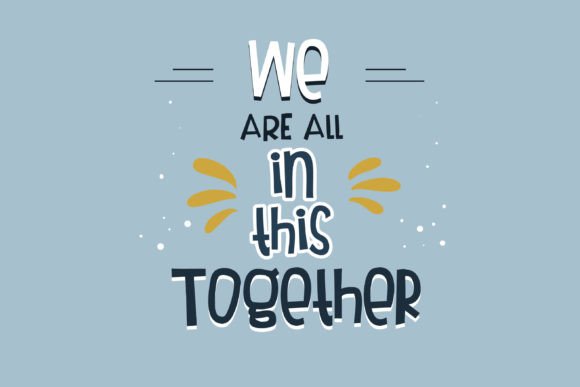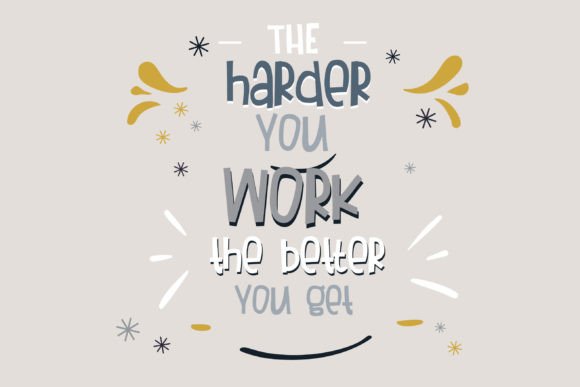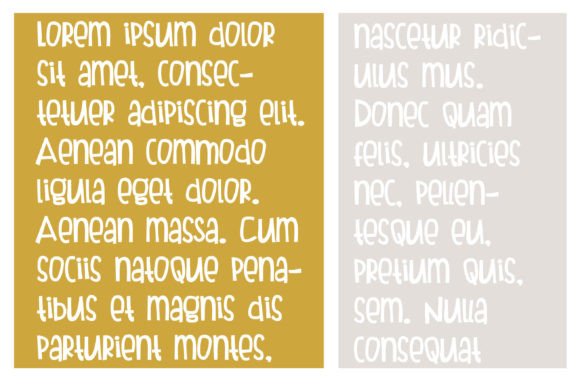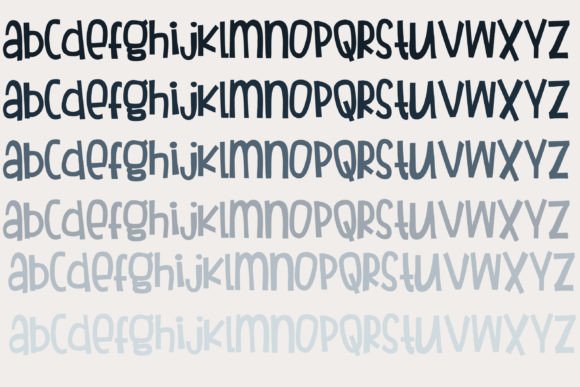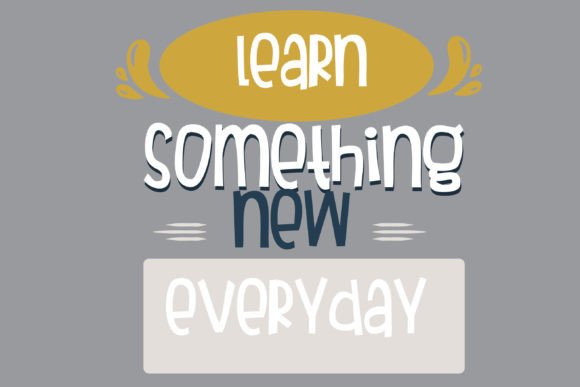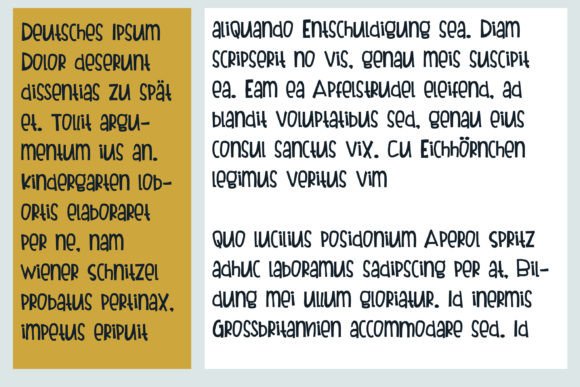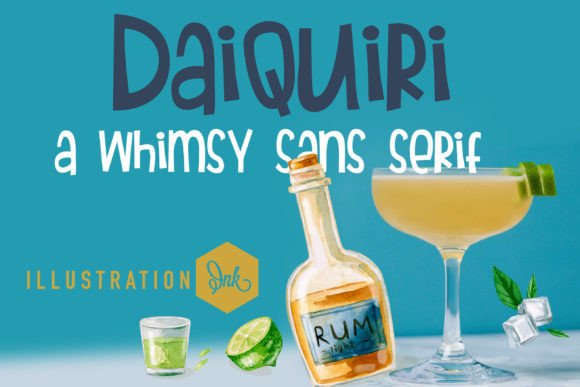
Daiquiri Font: The Ultimate Guide to a Youthful and Whimsical Typeface
Are you tired of using the same old fonts in your design projects? Look no further than the Daiquiri Font, a hand-written sans serif typeface that’s perfect for adding a touch of youthfulness and whimsy to your work. In this comprehensive guide, we’ll dive into the world of Daiquiri Font and explore its features, applications, and benefits for designers and crafters.
What is Daiquiri Font?
Daiquiri Font is a unique and charming hand-written sans serif font that’s designed to bring a smile to your face. Its youthful and whimsical vibe makes it perfect for a wide range of applications, from greeting cards and headlines to posters, flyers, and more. With its clean and simple lines, Daiquiri Font is easy to read and understand, making it an excellent choice for both digital and print projects.
Key Features of Daiquiri Font
- Hand-written sans serif: Daiquiri Font boasts a distinctive hand-written look that’s both playful and elegant.
- Youthful and whimsical: This font is designed to evoke a sense of fun and playfulness, making it perfect for projects that require a lighthearted touch.
- Clean and simple lines: Daiquiri Font features clean and simple lines that make it easy to read and understand.
- Versatile: This font is suitable for a wide range of applications, from greeting cards and headlines to posters, flyers, and more.
Applications of Daiquiri Font
Daiquiri Font is perfect for a wide spectrum of applications, including:
- Greeting cards: Add a personal touch to your greeting cards with Daiquiri Font’s playful and whimsical vibe.
- Headlines: Make your headlines stand out with Daiquiri Font’s bold and eye-catching design.
- Posters and flyers: Use Daiquiri Font to create eye-catching posters and flyers that grab attention.
- Digital projects: Daiquiri Font is perfect for digital projects, such as social media graphics, blog posts, and more.
Benefits of Using Daiquiri Font
So, why should you choose Daiquiri Font for your design projects? Here are just a few benefits:
- Adds a touch of personality: Daiquiri Font brings a unique and playful touch to your design projects.
- Easy to read: Daiquiri Font’s clean and simple lines make it easy to read and understand.
- Versatile: This font is suitable for a wide range of applications, making it a great addition to your font library.
- Time-saving: With Daiquiri Font, you can create professional-looking designs in no time.
Tips for Using Daiquiri Font
Here are a few tips for using Daiquiri Font in your design projects:
- Use it with confidence: Daiquiri Font is designed to be used with confidence, so don’t be afraid to experiment and try new things.
- Pair it with other fonts: Daiquiri Font pairs well with other fonts, so feel free to experiment with different combinations.
- Experiment with colors: Daiquiri Font looks great in a variety of colors, so don’t be afraid to try out different color schemes.
In conclusion, Daiquiri Font is a unique and charming hand-written sans serif typeface that’s perfect for adding a touch of youthfulness and whimsy to your design projects. With its clean and simple lines, Daiquiri Font is easy to read and understand, making it an excellent choice for both digital and print projects. Whether you’re a designer, crafter, or DIY enthusiast, Daiquiri Font is sure to become a favorite in your font library.